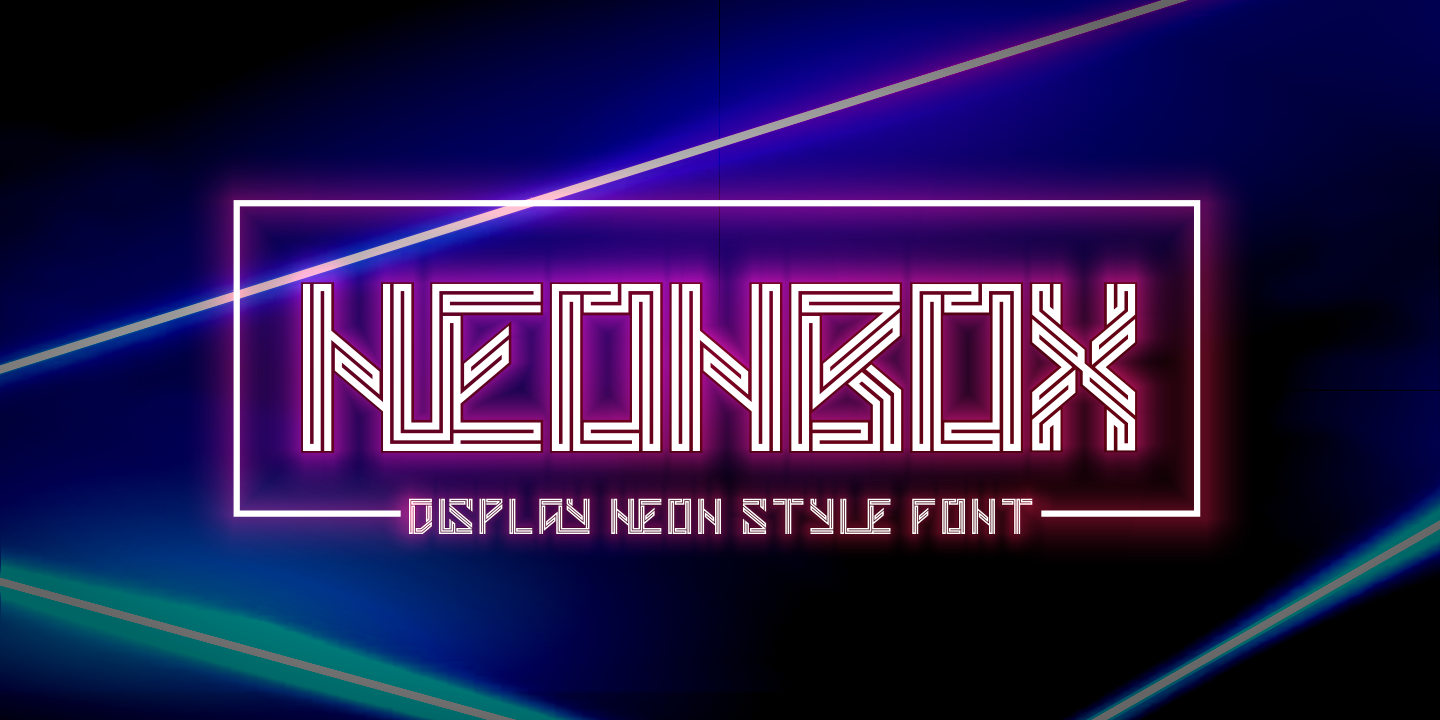
The Neonbox Font excels in various design applications including retro nightclub branding, electric entertainment promotions, vibrant gaming interfaces, neon sign reproduction, cyberpunk aesthetic projects, electronic music festival materials, futuristic technology marketing, urban nightlife communications, glowing promotional designs, and electrifying brand systems that demand luminous energy and electric sophistication.
What makes the Neonbox Font exciting is its authentic capture of neon tube lighting aesthetics through letterforms that glow with electric energy and vibrant illumination reminiscent of classic neon signage. This typeface embodies the excitement of urban nightlife through carefully crafted characters that suggest the bright glow, electric buzz, and magnetic attraction of neon lighting displays. The font's electrifying personality makes it perfect for entertainment venues and technology brands seeking to communicate vibrant energy, electric excitement, and the irresistible appeal of luminous design through typography that literally lights up content with neon brilliance.
The Neonbox Font family typically includes glowing weight variations that enhance the electric aesthetic, featuring luminous styling options and extended character sets optimized for digital displays and illuminated applications. These family options often include neon-inspired alternates, electric symbols, and glowing decorative elements that provide designers with comprehensive tools for creating authentically electrifying typography that captures the excitement and visual impact of real neon lighting while maintaining excellent readability across various media.
Entertainment industry professionals and technology brands consistently choose Neonbox Font Free Download for projects requiring typography that communicates electric energy and luminous appeal. This typeface delivers exceptional performance in nightlife marketing, gaming branding, and entertainment communications where creating excitement and establishing vibrant visual impact is essential for audience engagement. The font's glowing character makes it particularly effective for digital displays and promotional applications. Download Neonbox Font Free Download today to access this electrifying typeface that transforms communications with its neon brilliance and electric sophistication, creating compelling illuminated experiences that capture the magnetic appeal of neon lighting while delivering the vibrant energy and urban excitement that makes content impossible to ignore.